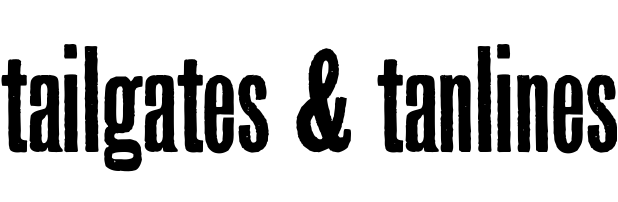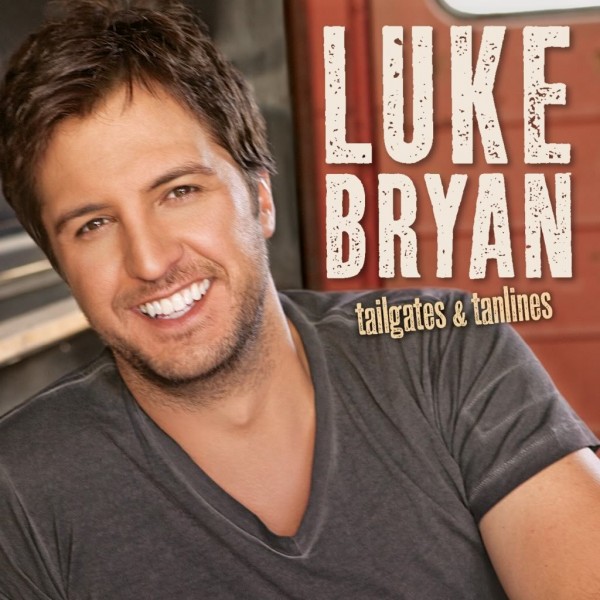
Tailgates & Tanlines Font
CountryTailgates & Tanlines is the third studio album by American country music artist Luke Bryan. It was released on August 9, 2011, by Capitol Nashville.